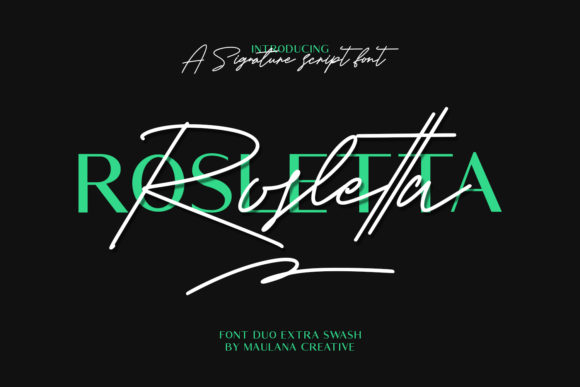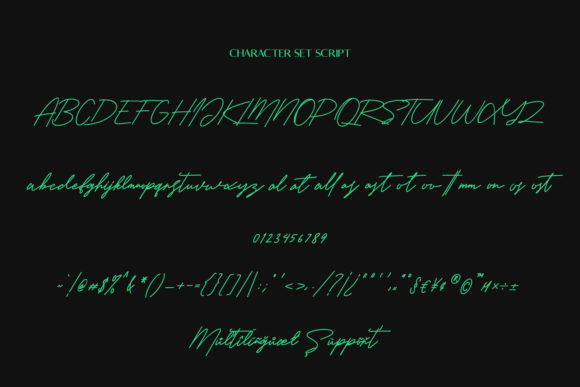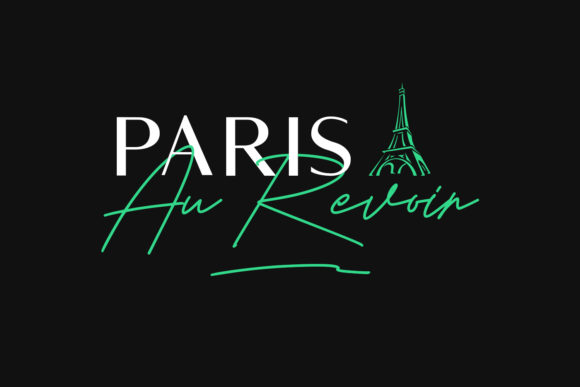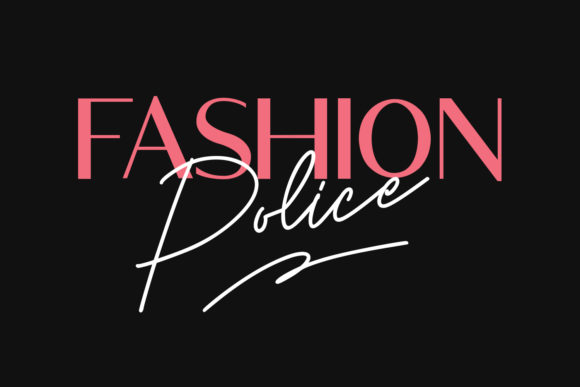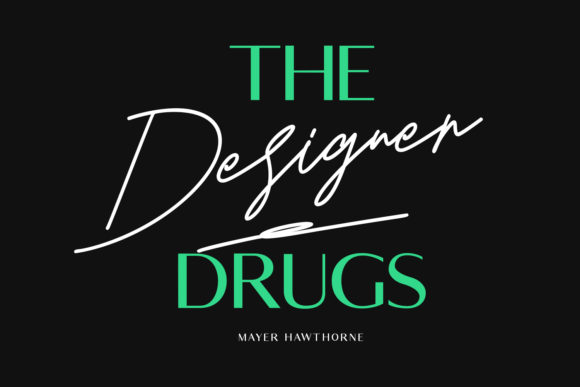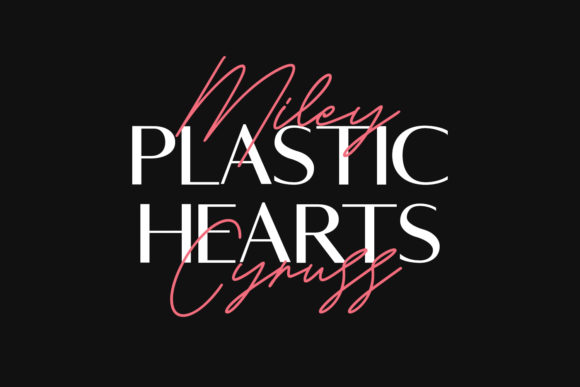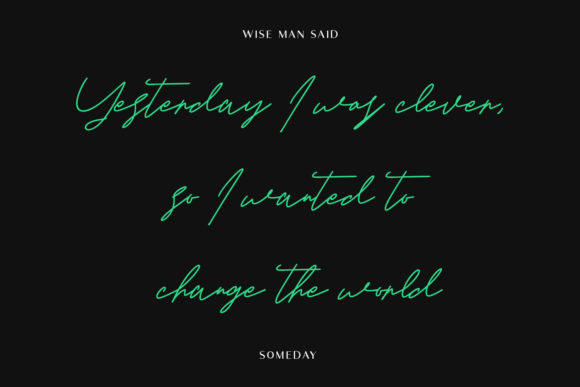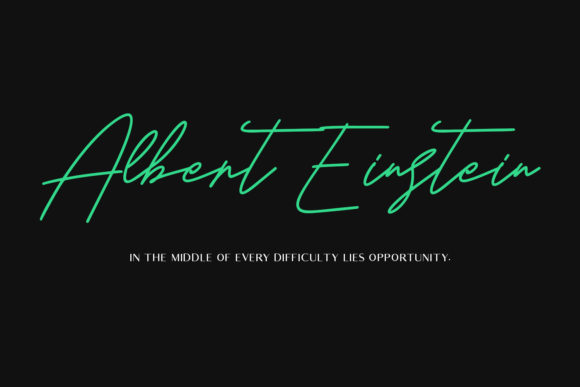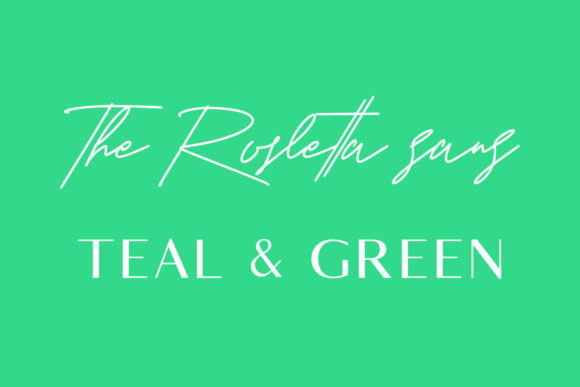
About Rosletta Font
Rosletta is a lovely duo font (script and sans serif). It is elegant and bold, imposing and distinct. It looks beautiful on a variety of designs requiring a personalized style, such as wedding invitations, thank you cards, weddings, greeting cards, logos and so on.